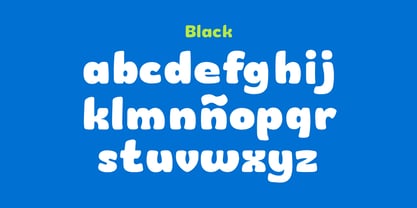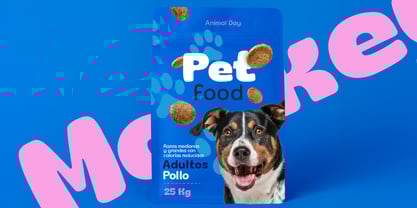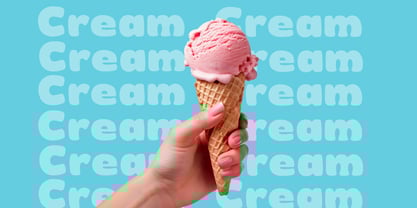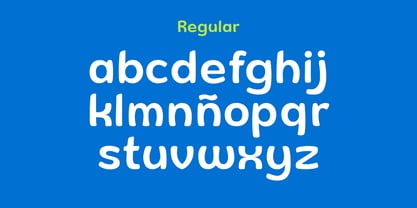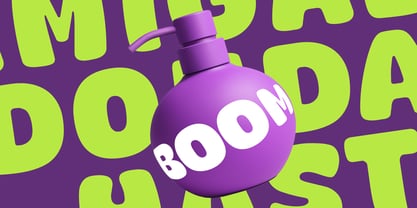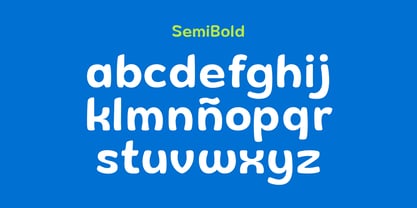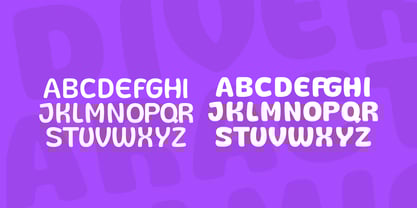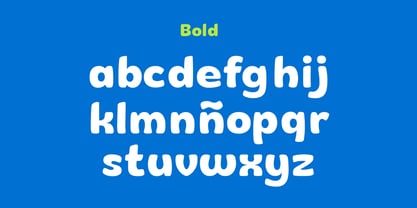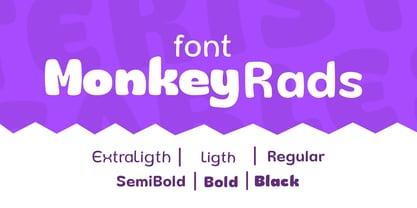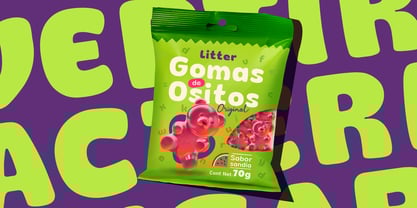
Monkey Rads
The Monkey Rads Font Family was designed by Diego Santisteban and published by TypeRads. Monkey Rads contains 6 styles and family package options. More about this family
MonkeyRads is a charming and playful sans-serif typeface designed to make a big impression. Its rounded edges and slightly curved stems give it a soft, approachable feel, making it perfect for impactful headlines and branding that needs to convey a friendly and fun personality.
This typeface is a great choice for a wide range of applications, from packaging for food and beverages to children's books and vibrant posters. Its bold and cheerful presence shines in display settings where clarity and character are key.